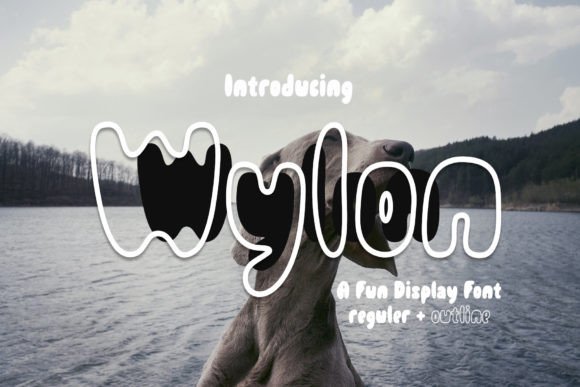
Journey into the realm of Wylon Font, a captivating display font family that exudes cheerfulness and happiness, crafted by the creative minds at Tera Asset Garage. Inspired by the irresistible charm and playful nature of animals, Wylon Font is more than just a collection of letters; it's a gateway to a world of joy and delight.
With its delightful design and a sprinkle of fun, the Wylon Font family showcases an array of cute and entertaining letter shapes that bring a smile to the reader's face. The adorable details and cheerful curves create a lively and joyful atmosphere, capturing the essence of animal playfulness and cheer.
Immerse yourself in the versatility of Wylon Font, suitable for a myriad of design projects that aim to spread cheerfulness, happiness, and affection. From vibrant posters and heartfelt greeting cards to logos that radiate the adorable side of a brand, Wylon Font is your creative companion.
Customize your designs with the bold style and available outlines of Wylon Font, tailoring it to your unique design vision. Whether you're seeking a touch of cheerfulness in your posters, a dash of happiness in your greeting cards, or an adorable touch in your logo designs, Wylon Font is your perfect choice.
With each design project, Wylon Font adds a spark of cheerfulness and happiness that evokes smiles from anyone who encounters it. Its cute and cheerful letter designs infuse freshness and joy, creating an atmosphere of happiness that captures the hearts of the audience.